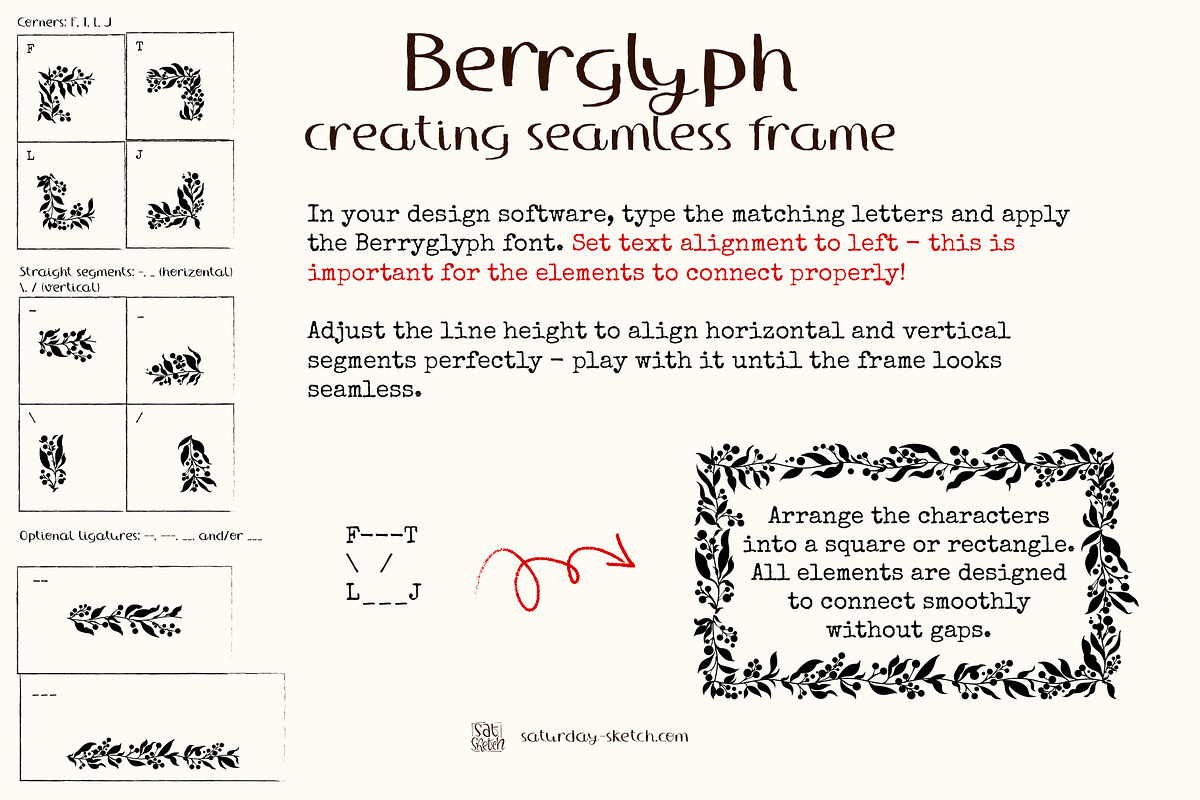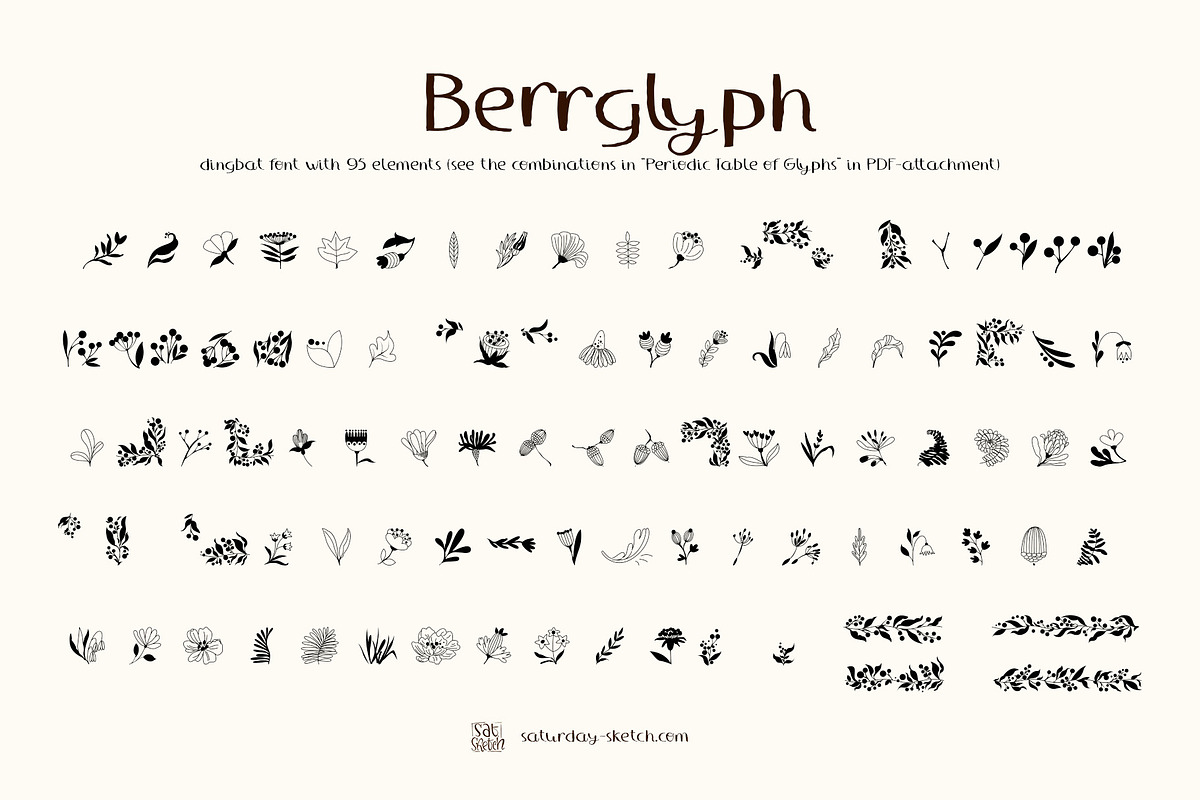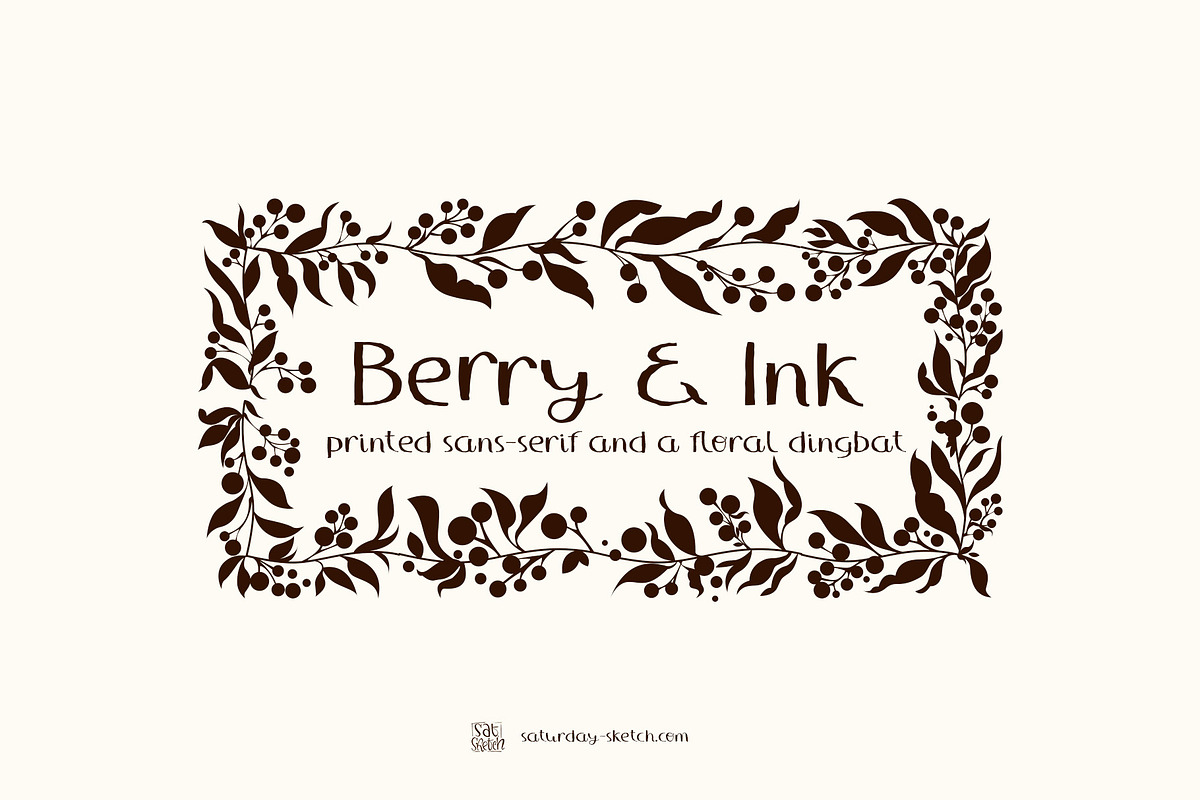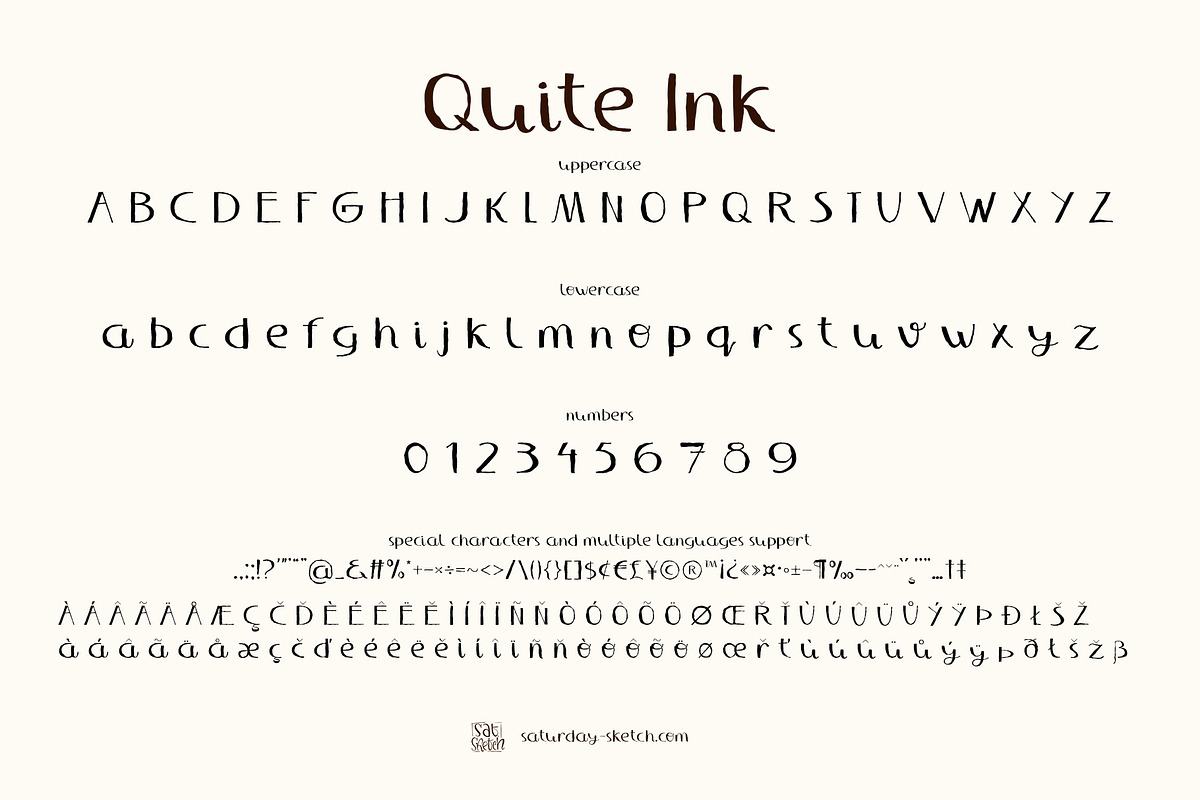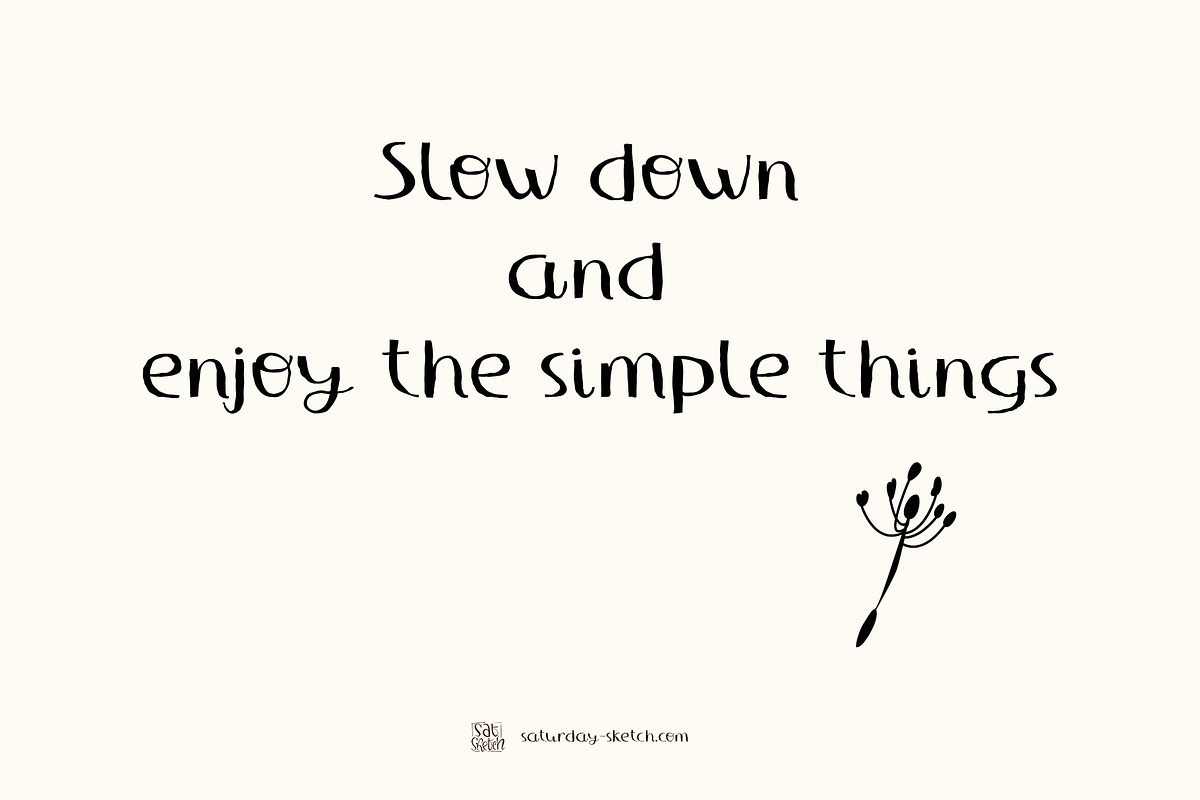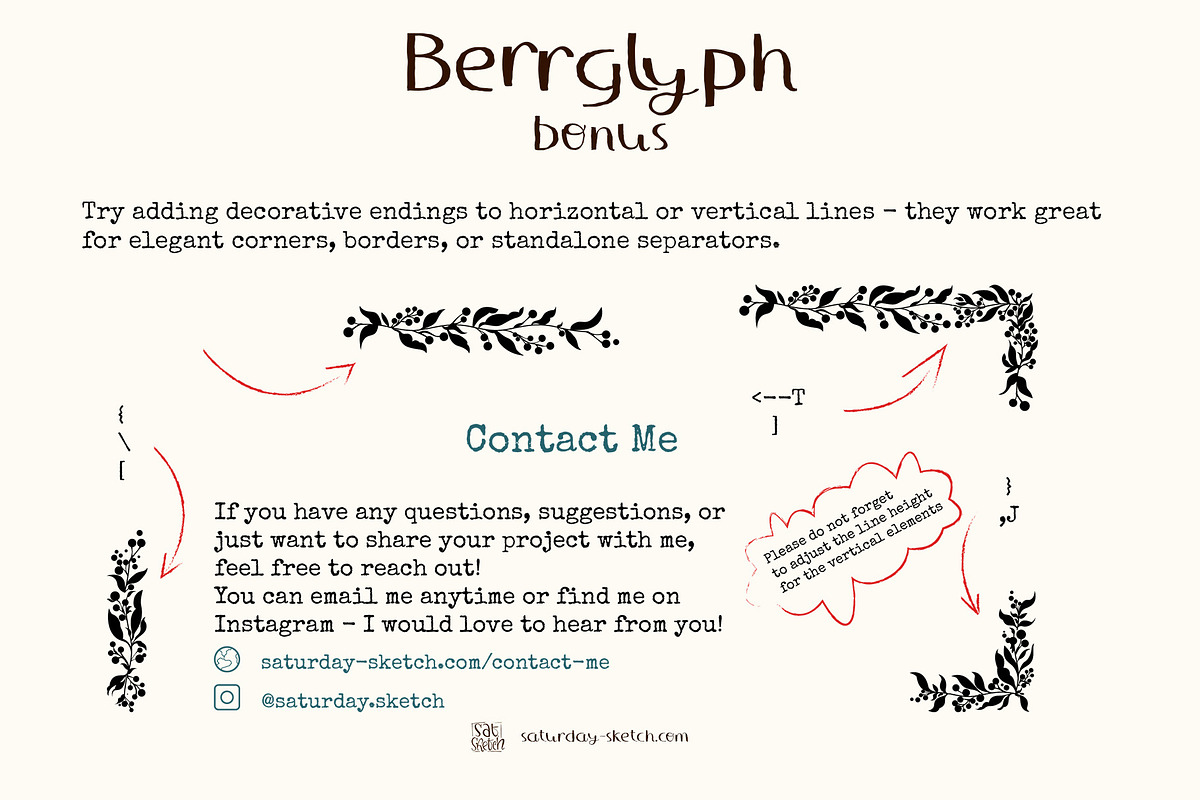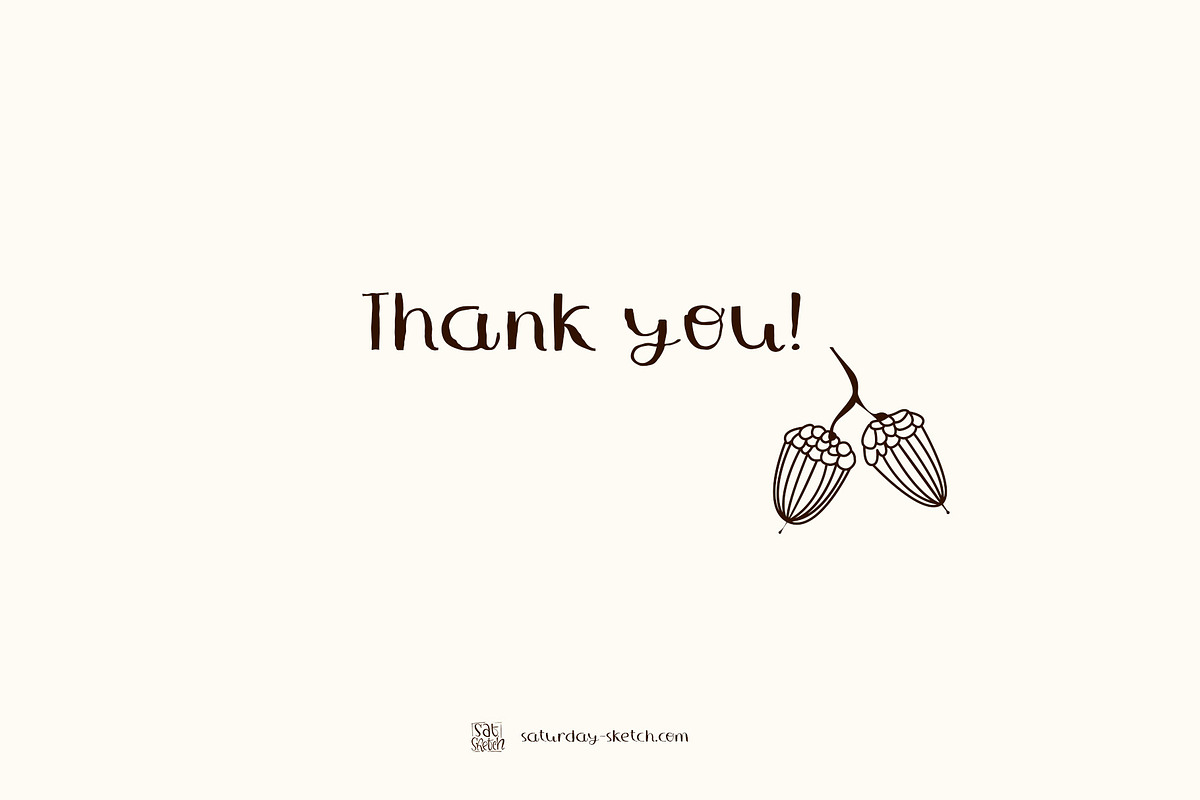
Berry & Ink font duo border builder
Berry & Ink - Hand-Drawn Font Duo with Botanical Dingbats
Quiet Ink & Berryglyph is a charming hand-crafted font duo that brings a warm, organic touch to your design projects.
- Quiet Ink - a printed, hand-drawn sans-serif font with a soft, personal feel, perfect for branding, packaging, quotes, and editorial use.
- Berryglyph - a botanical dingbat font with 95 illustrated elements including leaves, berries, branches, and floral motifs. It also includes components to build seamless frames and decorative borders. Please see the slides or read more in attached PDF file with Usage Guide or do not hesitate to contact me in case of any questions!
Perfect for nature-inspired designs, invitations, stationery, labels, and more.